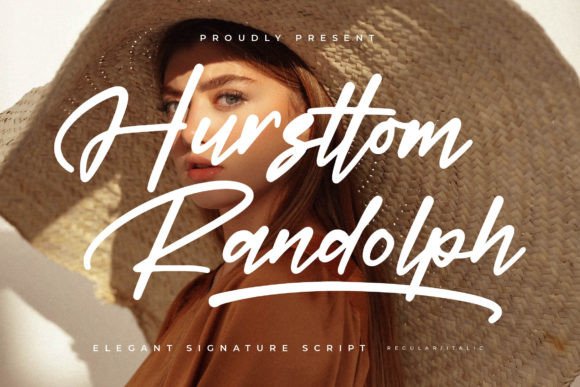
Prepare to be mesmerized by Hursttom Randolph, a captivating script font that will transform your designs into masterpieces. Immerse yourself in the world of visual allure as this elegant font graces your projects, leaving an indelible mark of sophistication and timeless charm.
Step into a realm of endless possibilities, where Hursttom Randolph becomes your artistic muse. Whether you're crafting logos that speak volumes, designing branding projects that leave a lasting impression, or creating homeware designs that exude elegance, this font is your perfect companion.
Unleash your creativity and let Hursttom Randolph weave its magic into product packaging that captivates customers, mugs that spark conversations, quotes that resonate with your audience, and posters that demand attention.
Envision shopping bags adorned with Hursttom Randolph, adding a touch of flair to your brand's identity. T-shirts, book covers, and name cards become expressions of your unique style, while invitation cards and greeting cards carry your heartfelt messages in a truly memorable way.
Add a touch of exclusivity to labels, photography, and watermarks, making your projects stand out from the ordinary. Special events take on a new level of sophistication when Hursttom Randolph graces your designs, creating an ambiance that lingers in the minds of your guests.
With Hursttom Randolph, you're not just downloading a font; you're embarking on a journey of creative exploration and self-expression. Let this elegant script font ignite your imagination and transform your designs into works of art.